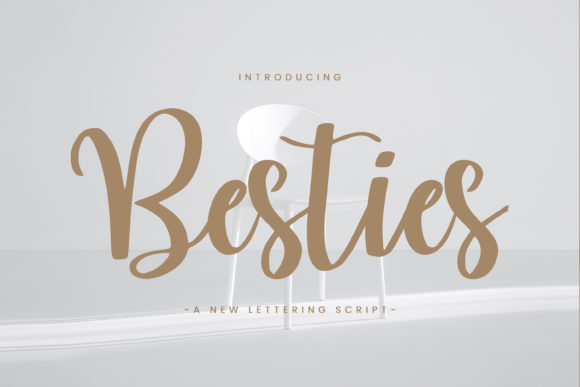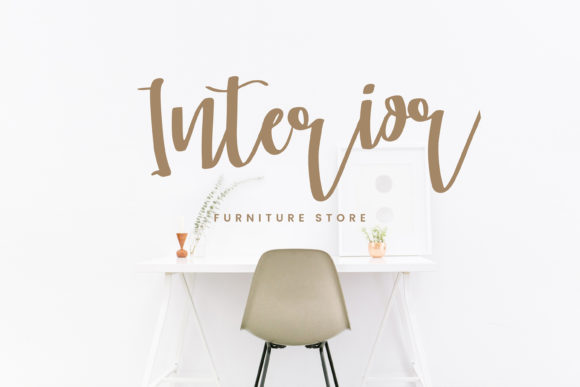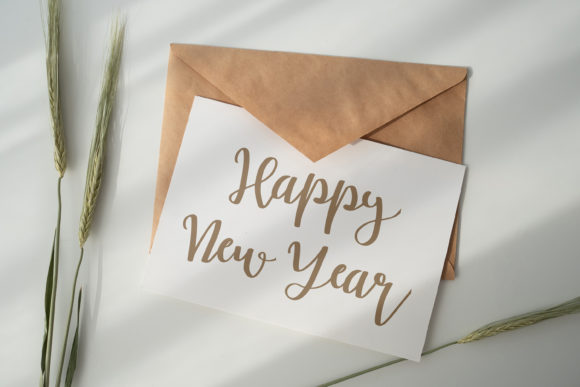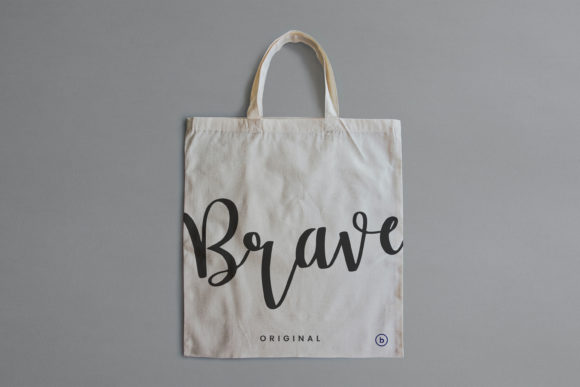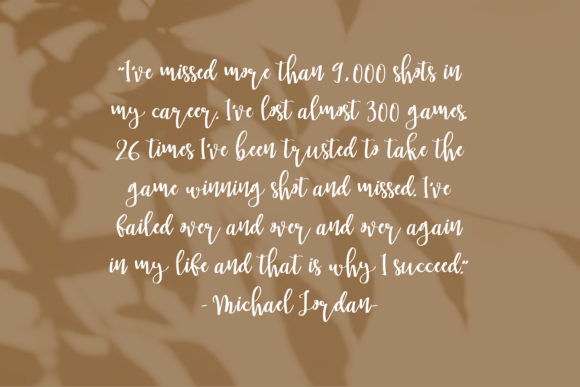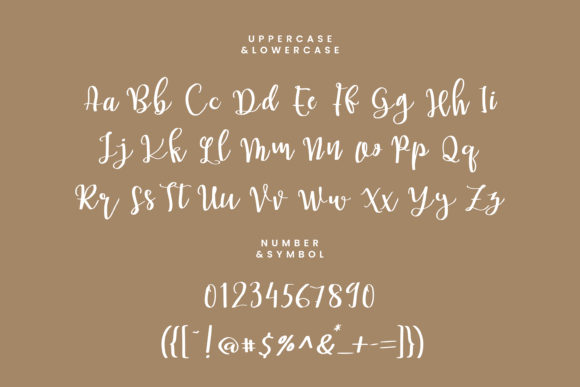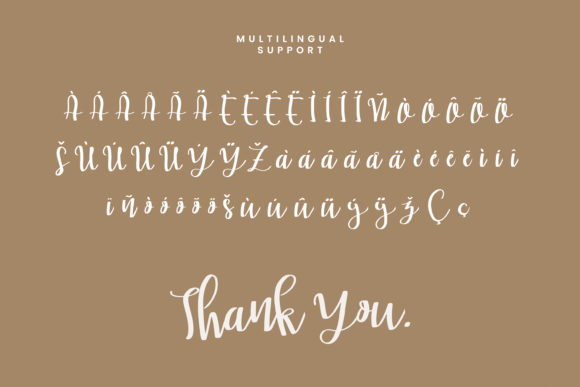
Besties Font
About Besties Font
Besties is a fun and trendy handwritten font, created with the help of a brush pen. It can be used for various purposes such as logos, wedding invitations, headings, t-shirts, letterhead, signage, labels, news, posters, badges and so much more.